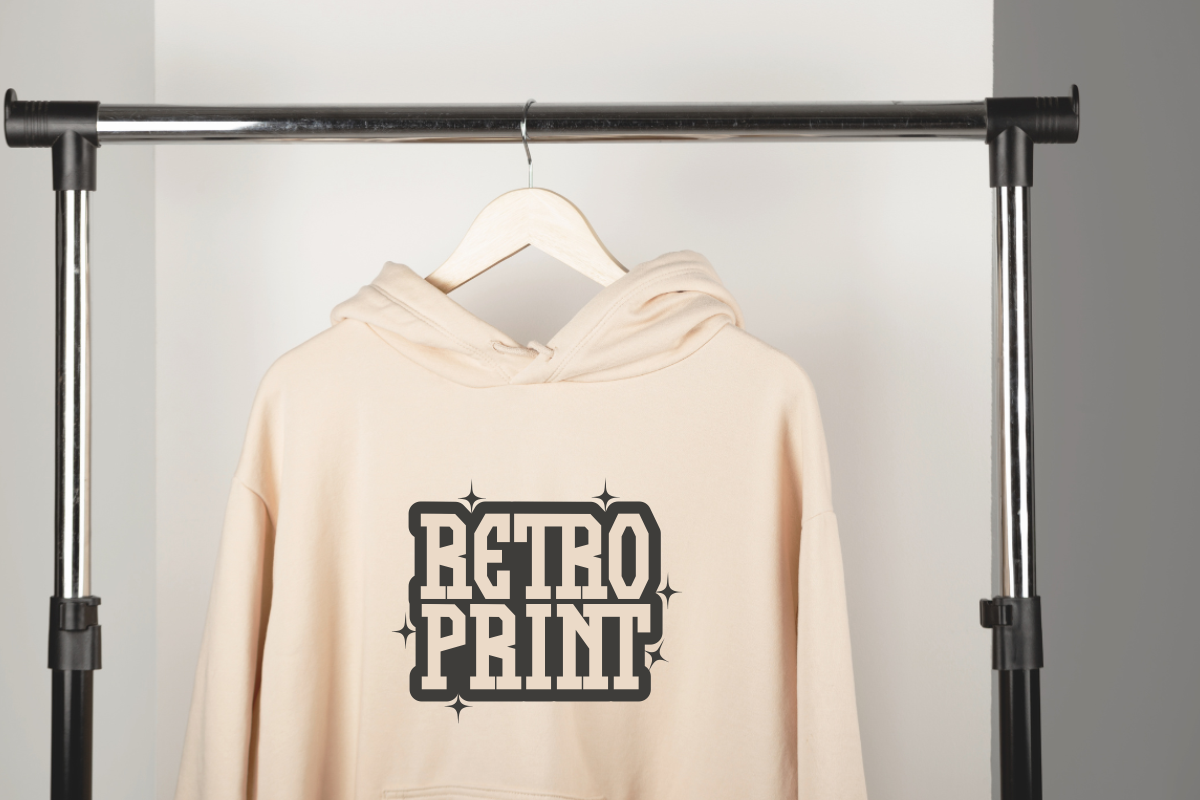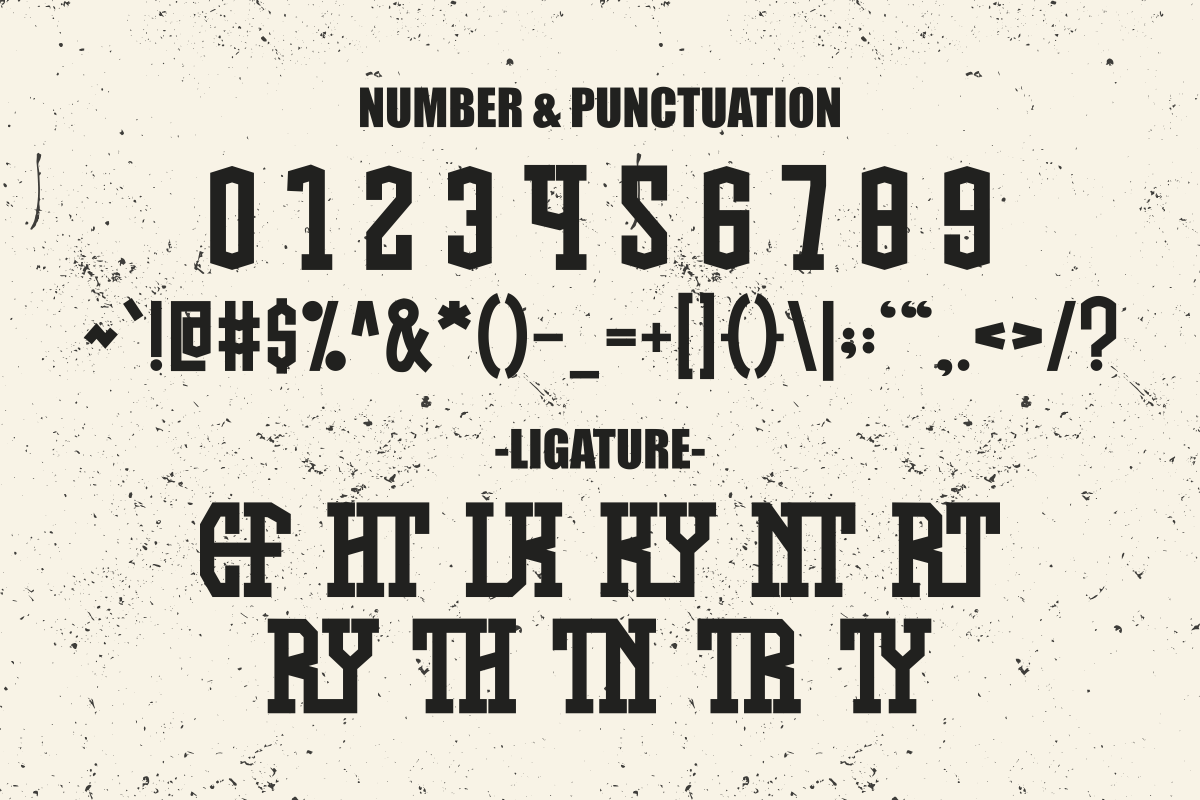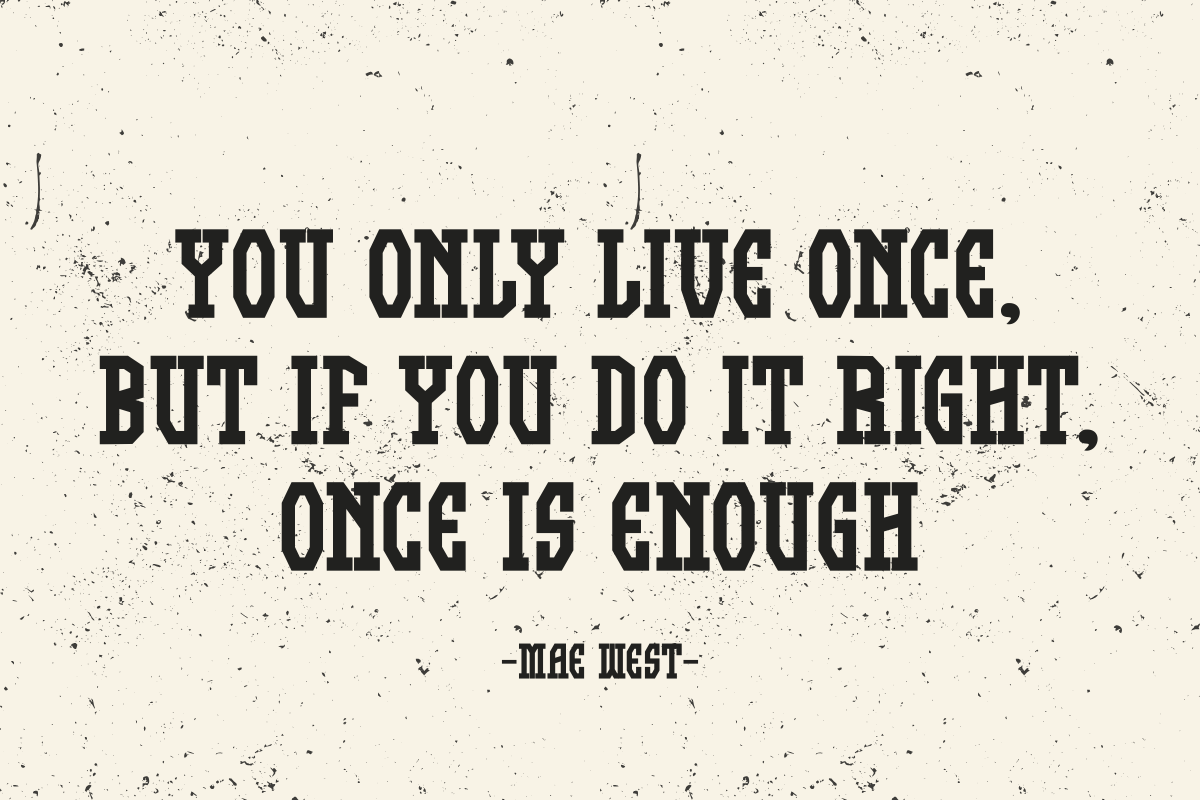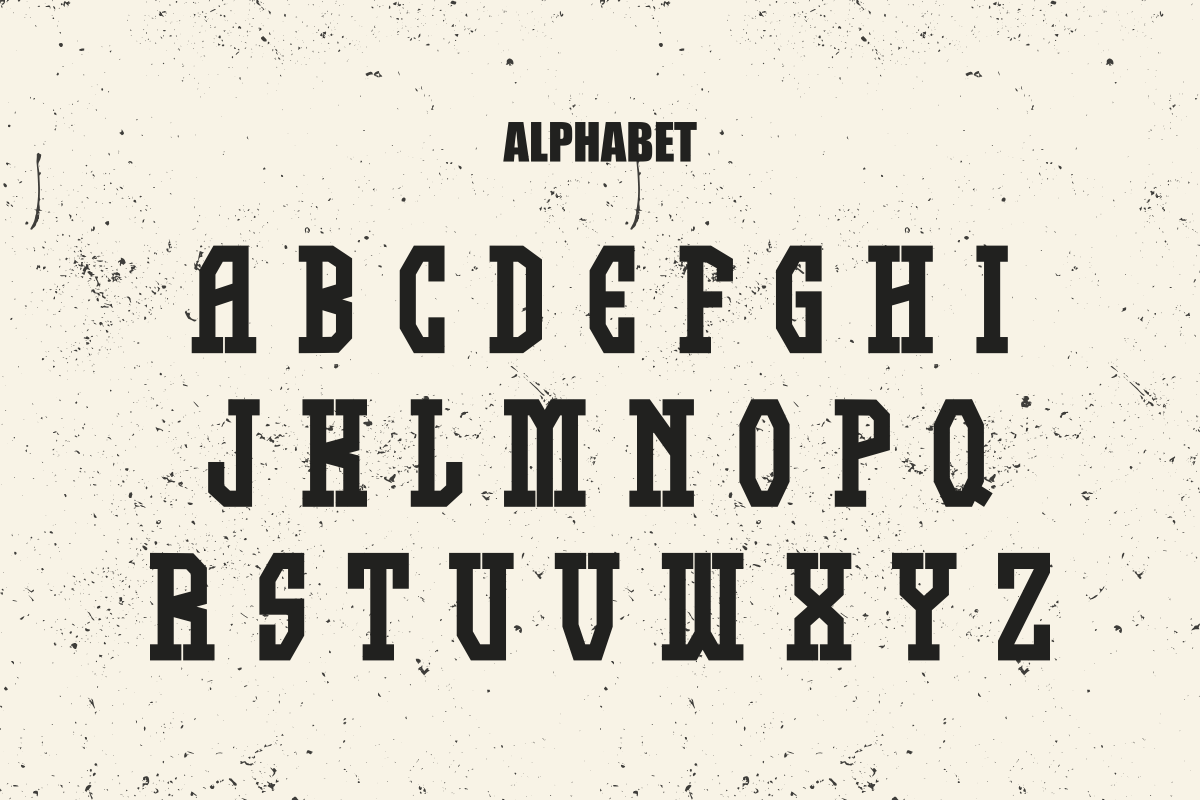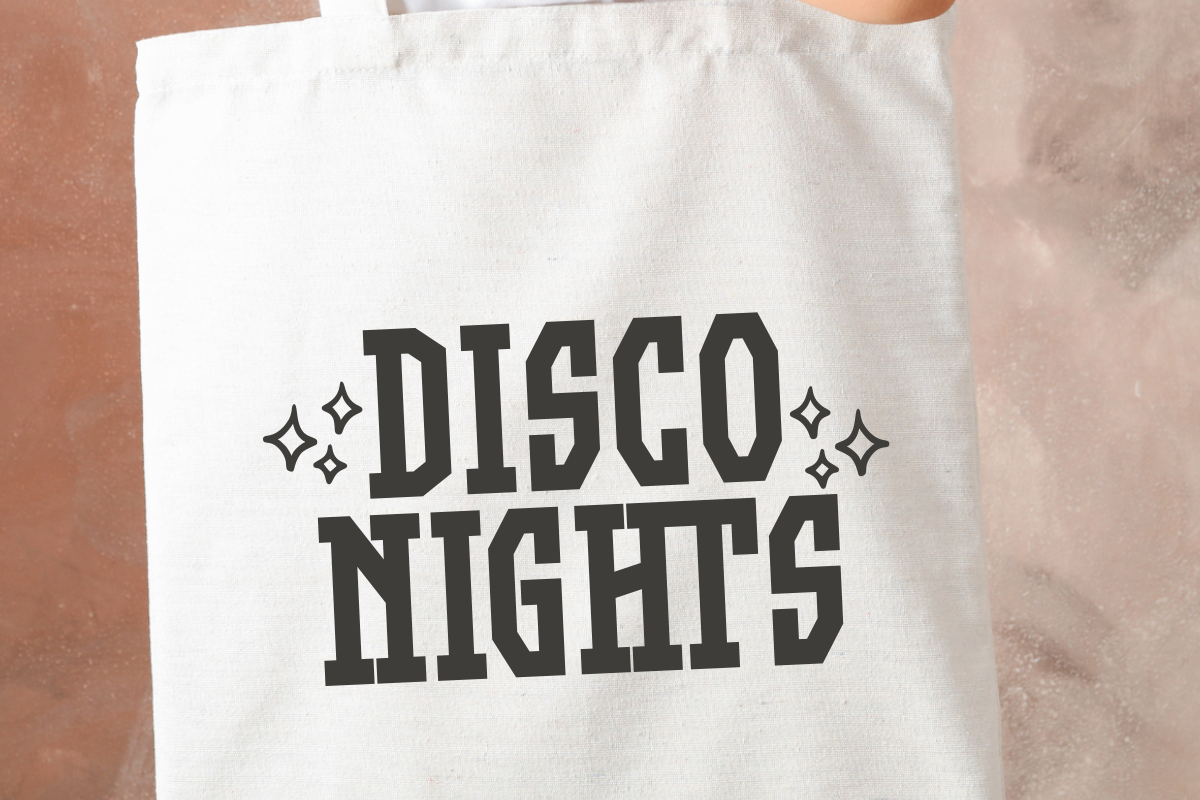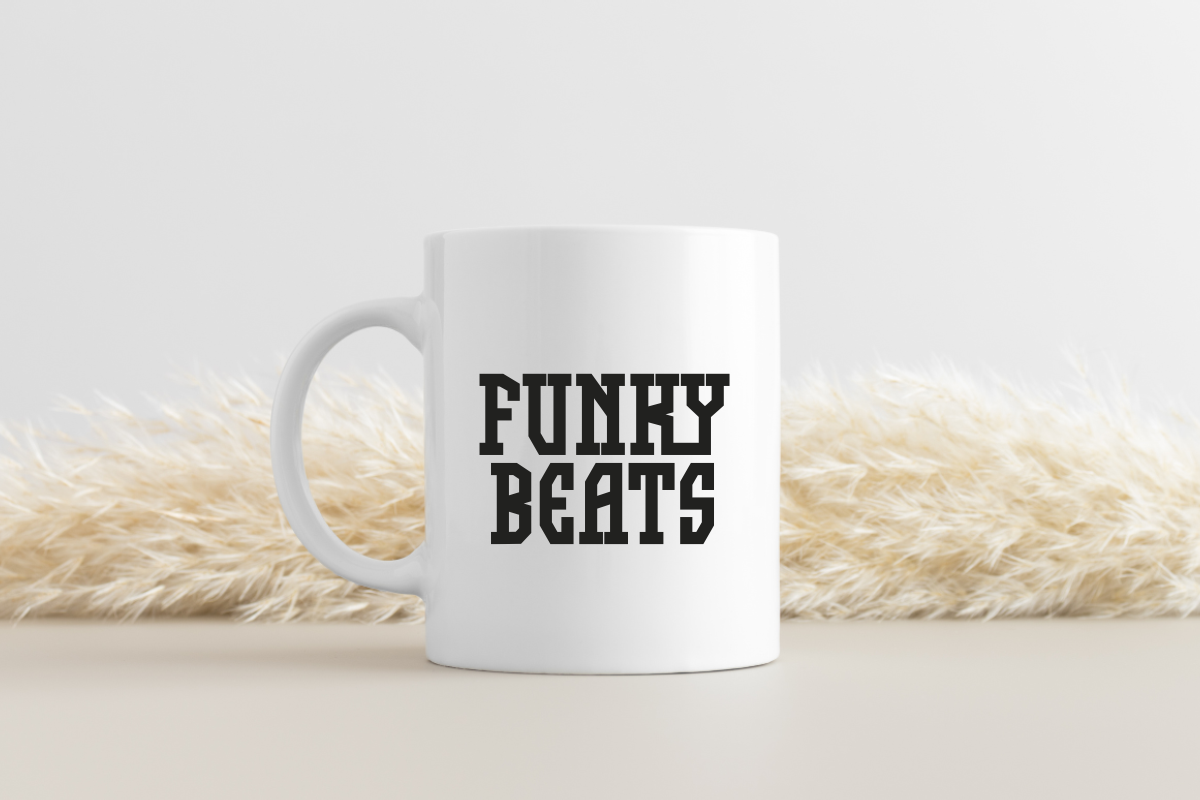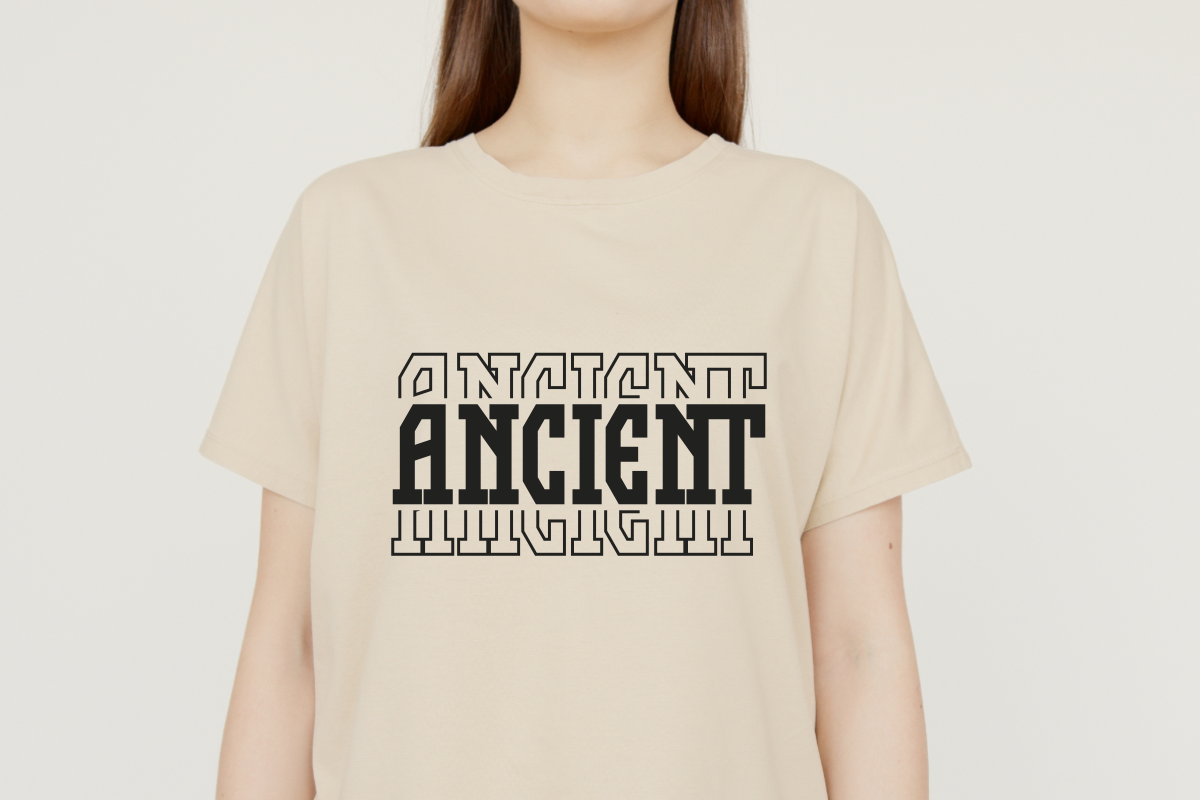
Retro Short - Modern Slab Serif
Retro Short is a unique classic and retro vintage slab serif font that perfect for adding a nostalgic touch to your design. Ideal for quotes, posters and apparel mockups. And also suitable for various topics such as Christmas, trump, thanksgiving, grinch, funky, laser, march and patriotic great dane.